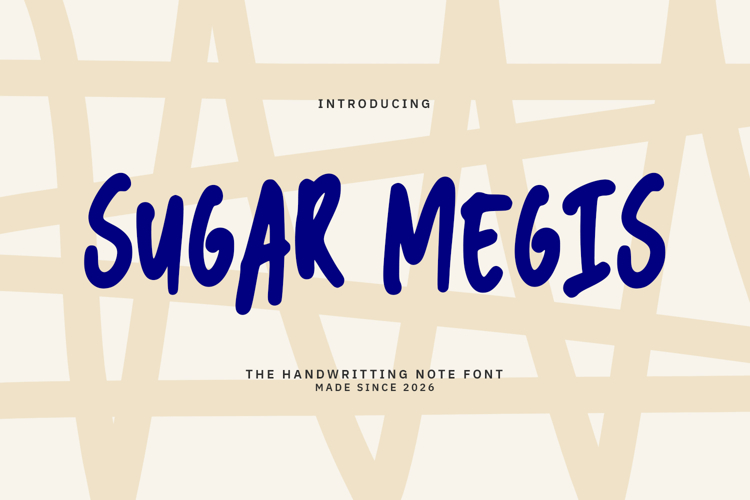
Sugar Megis is a handwriting note font designed with soft strokes and a sweet, playful character. Inspired by casual pen writing and daily notes, this font delivers a warm and friendly feel with a clean and readable structure. Its smooth flow and natural rhythm create a charming handwritten look that feels.
Sugar Megis is perfect for notes, journals, planners, social media graphics, branding, quotes, and creative projects that need a cute and approachable handwritten style.